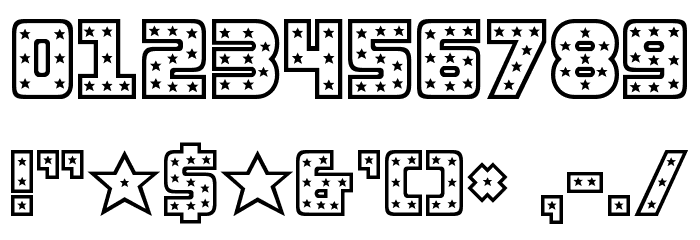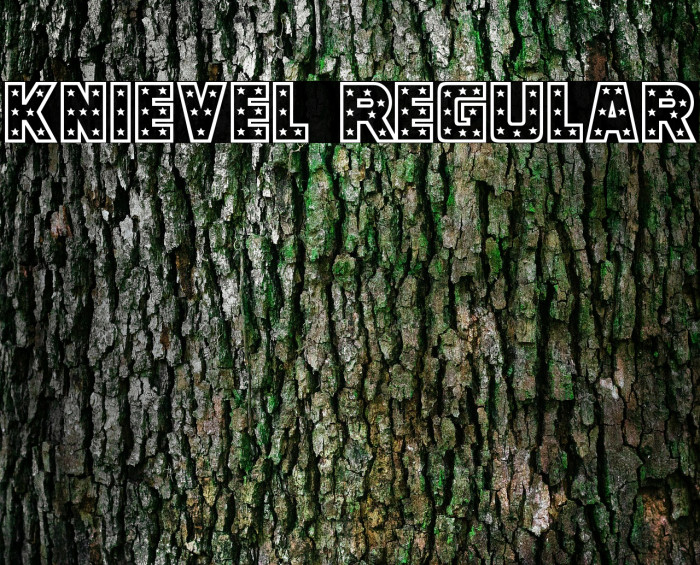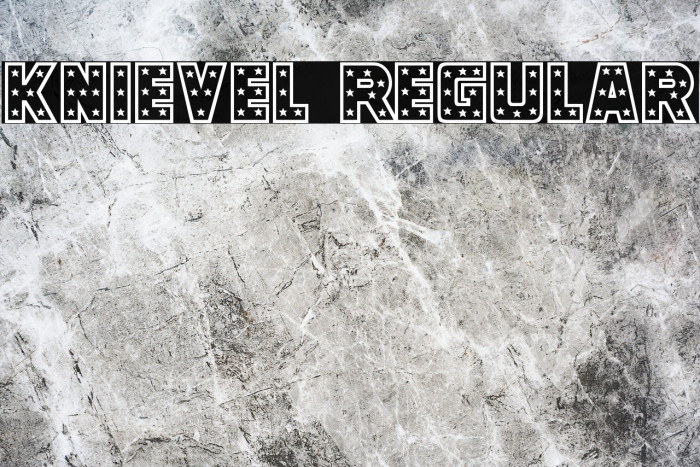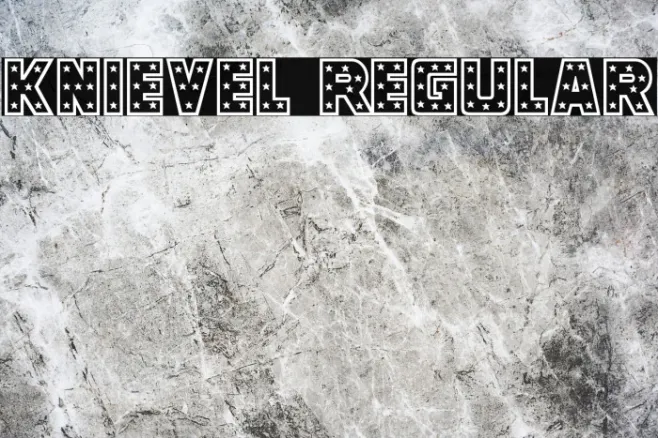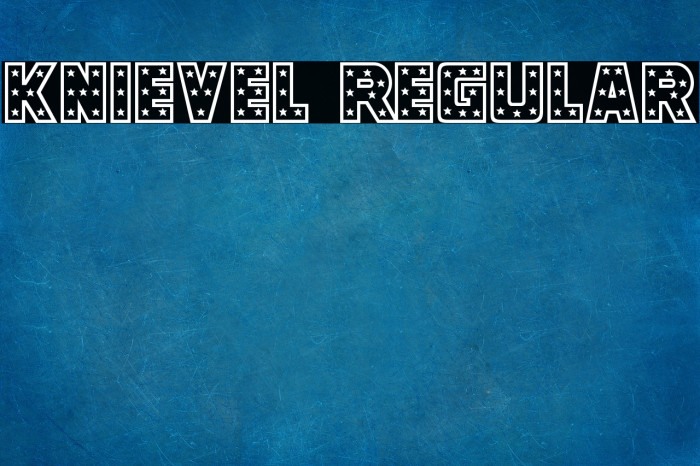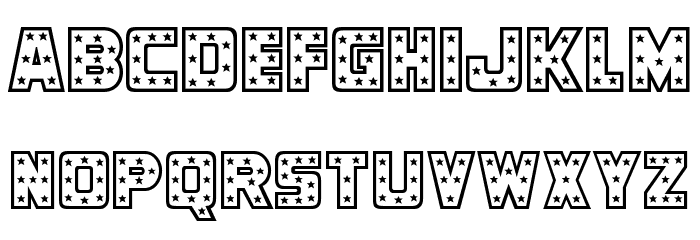
Knievel Regular Font
This font features a bold, decorative style with a unique star pattern filling each character. The letters are uppercase and have a strong, blocky appearance, making them stand out prominently. The star motif adds a playful and eye-catching element, suitable for attention-grabbing designs. The characters are evenly spaced, providing a balanced and uniform look. This font is ideal for projects that require a fun and dynamic aesthetic, such as posters, event flyers, or themed branding. Its distinctive style ensures that text is both readable and visually engaging.
A bold, decorative font with a star-filled pattern, perfect for eye-catching designs.
• Proposed Projects: Ideal for posters, event flyers, themed branding, and any project needing a playful, dynamic look.
• Category: Decorative/Display
• Bold: Yes
• Italic: No
• Weight: Bold
• Width: Normal
• Character Spacing: Normal
• Contrast: Low
• Overall Style: Decorative
• Use Case: Headlines, Logos